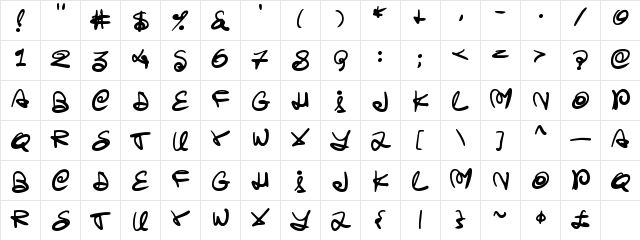
Swirlstory Regular
Design Context for Swirlstory Typeface
Swirlstory is built around its visual character rather than neutral utility — its distinctive forms are designed to make an impression at display sizes.
Font Pairing: Pair with a clean neutral sans-serif for body copy to let Swirlstory's character lead without overwhelming the composition.
Pro Tip: Use Swirlstory exclusively at display sizes — it was designed to be seen, not read at length. Let a neutral companion handle body copy.